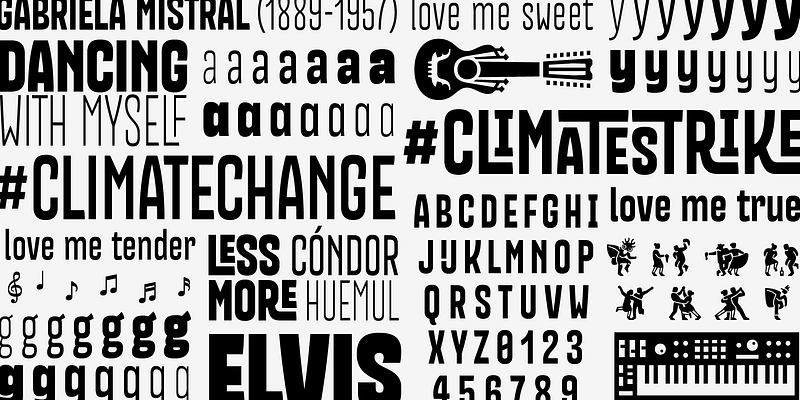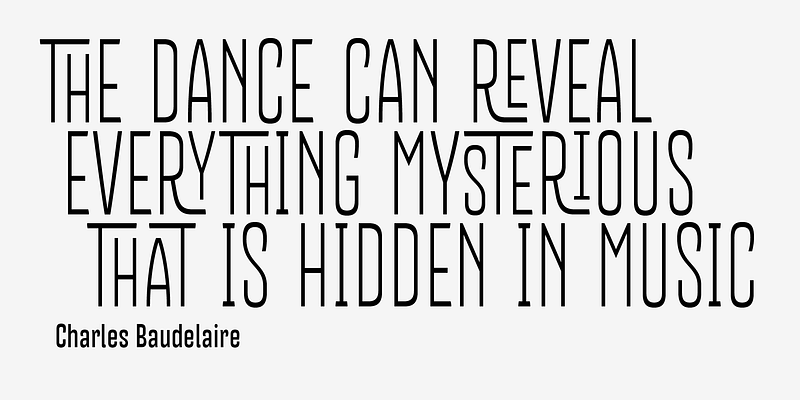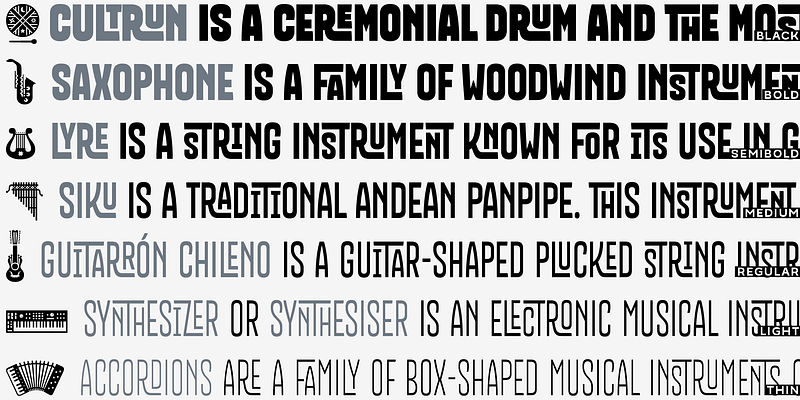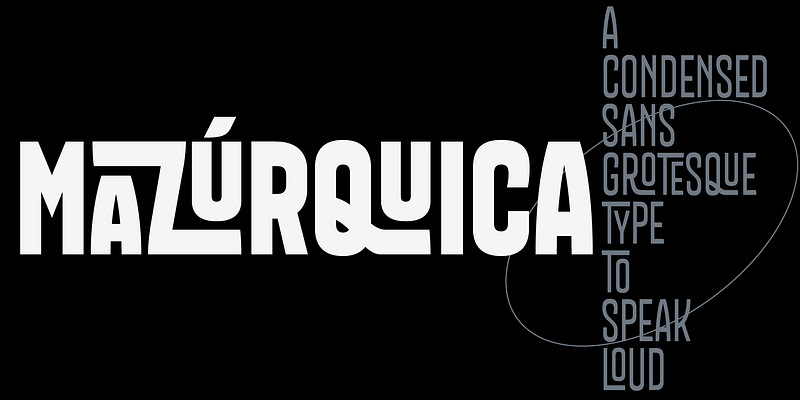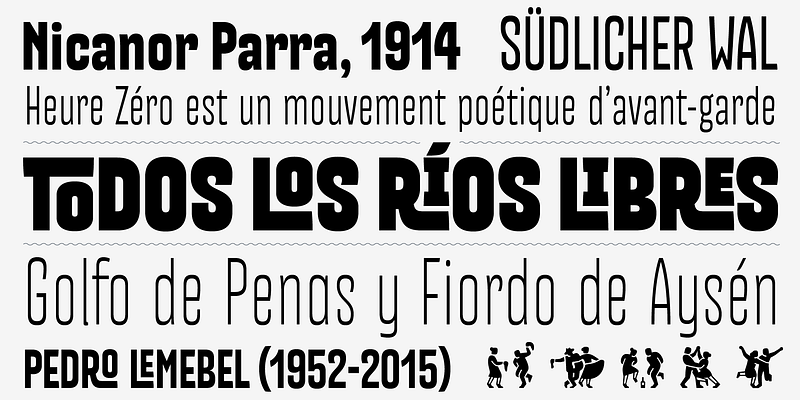
Mazúrquica is a condensed Grotesque typeface that combines some aspects of the 19th century woodtype with a subtle reverse contrast and shapes that reminds some formal aspects of the street letterings seen in Santiago and Valparaíso. Over the years Mazúrquica found its place in the visual landscape of Chile, it is one of the most popular typeface of our catalogue, widely used in many designs related with the chilean artistic and cultural activities. There is something in Mazúrquica that catches the eye and produces a sense of identity and unity.
In 2020, we introduce a new completely reviewed and updated version of the family, cut in seven weights, with a new set of interlocking capital letters, new sets of figures, alternative glyphs and other nice OpenType features. Its particular look and condensed structure makes Mazúrquica a very suitable typeface for composing strong headlines and short texts.